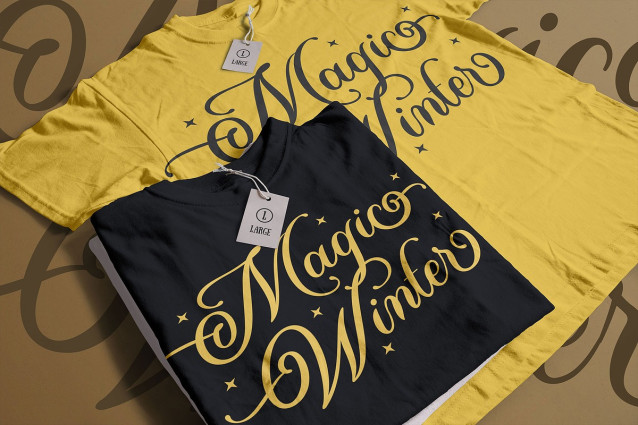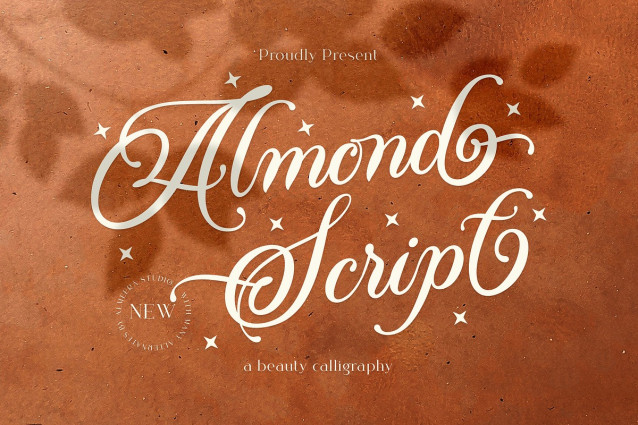
Almond Script – Calligraphy Font
Almond Script Font is a modern calligraphy with many alternative styles, this font looks natural, elegant and perfect for any extraordinary project.Almond Script is suitable for various products such as invitations, product packaging, quotes, product design, crafter, labels, photography, watermarks, logos & branding and very suitable for design Valentine day, mother day, wedding, spring, christmas, etc.Everything Stylistic Altternate can be accessed using software that supports Opentype, such as Adobe Indesign, Adobe CS Illustrator, Adobe Photoshop CC, and Corel Draw or I have provided OTF ,TTF, WOFF for swash and stylistic alternates.